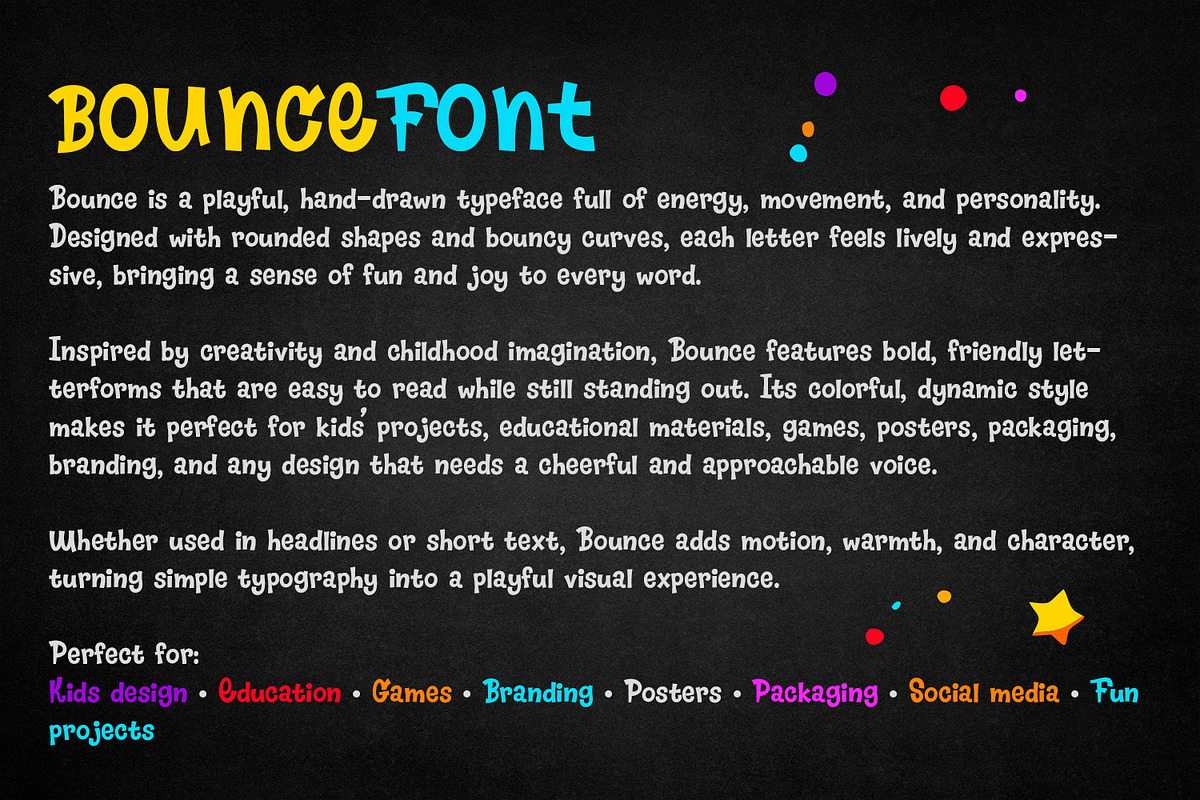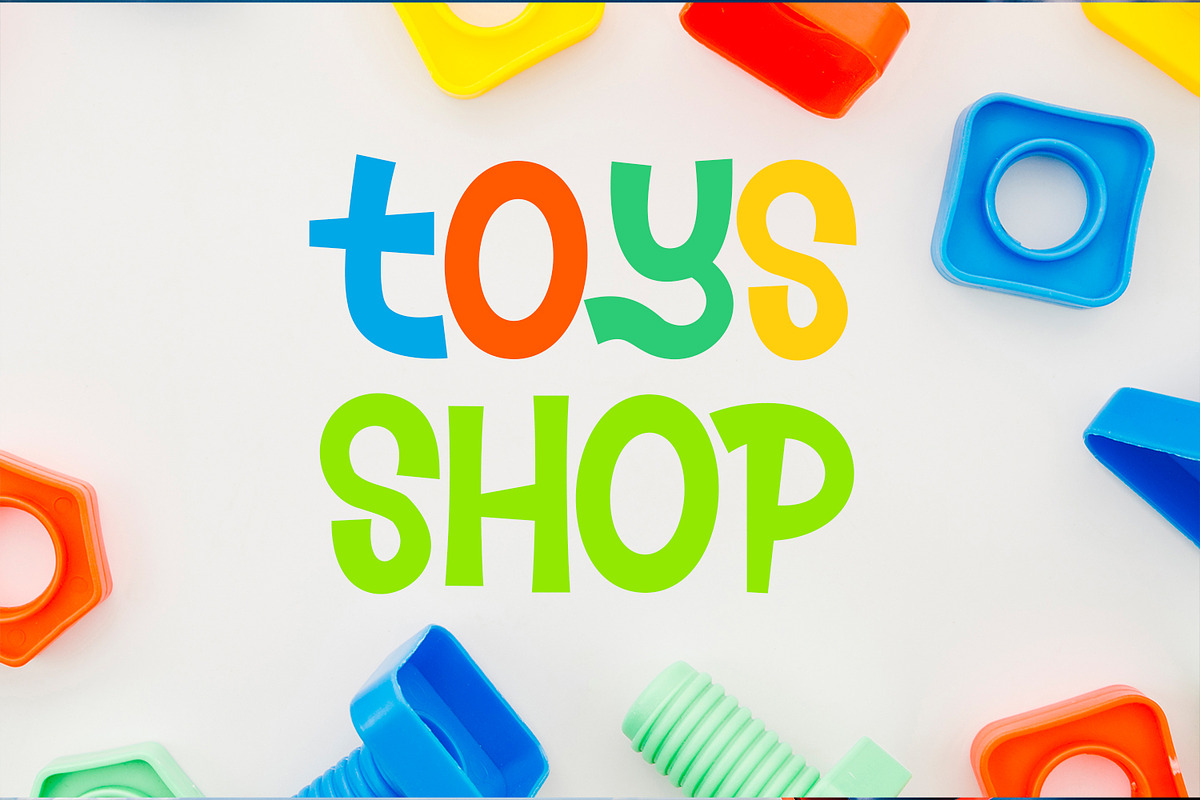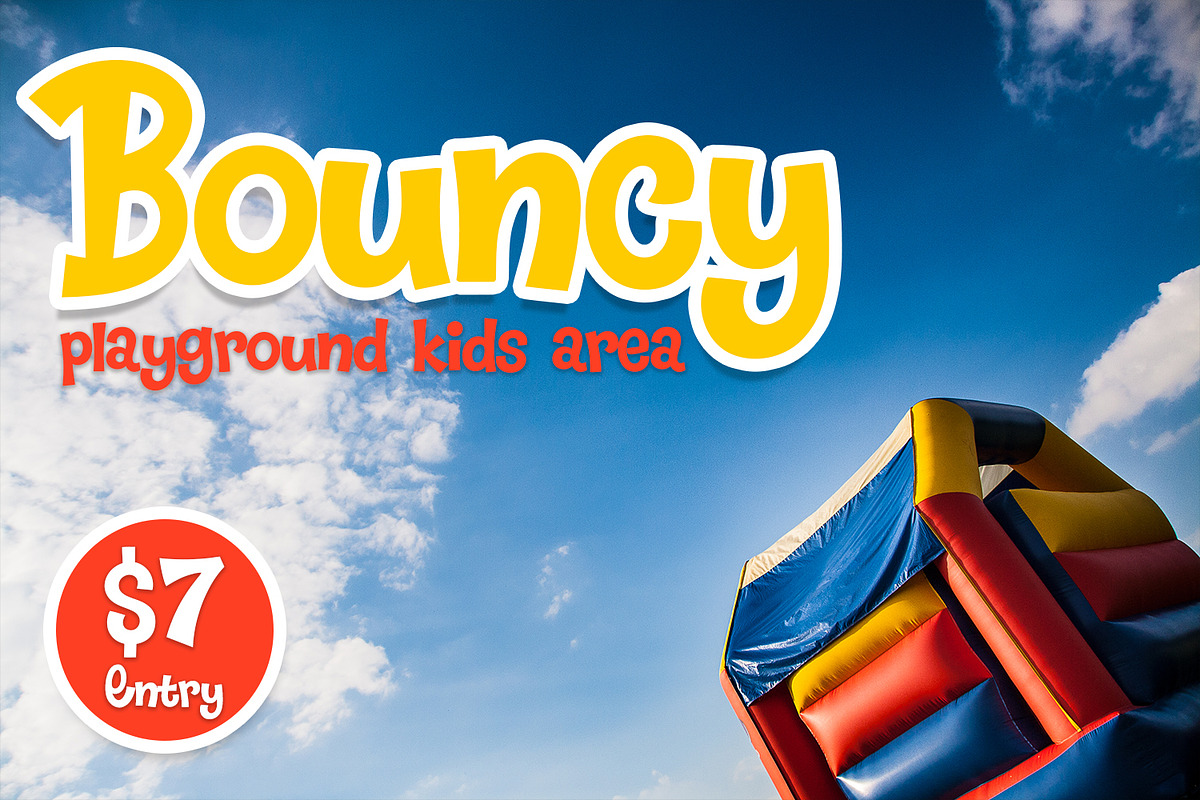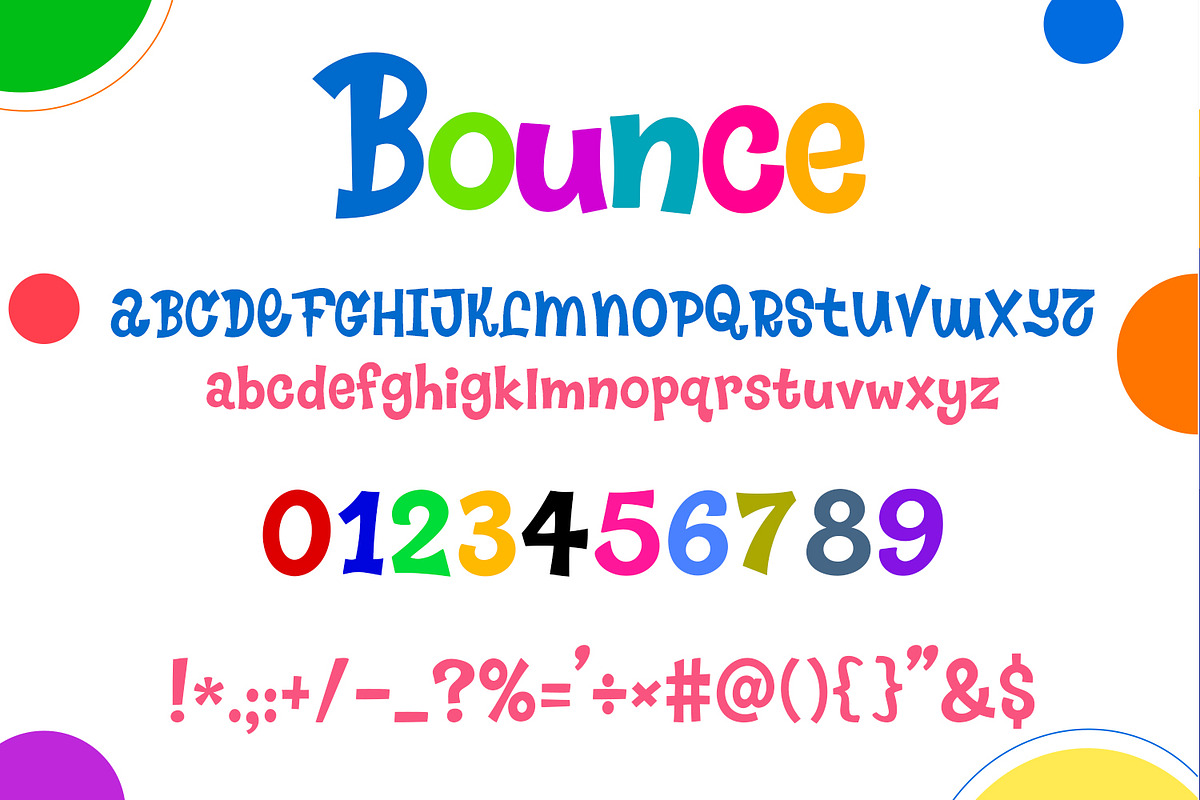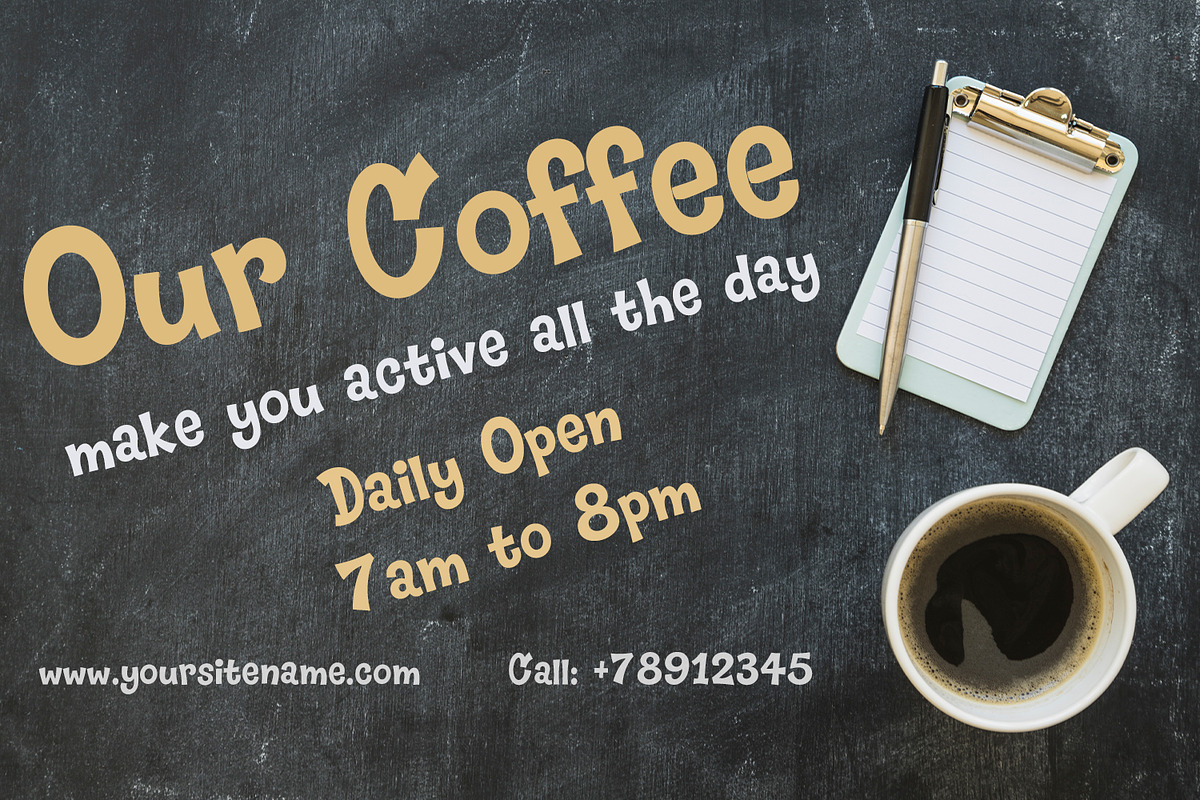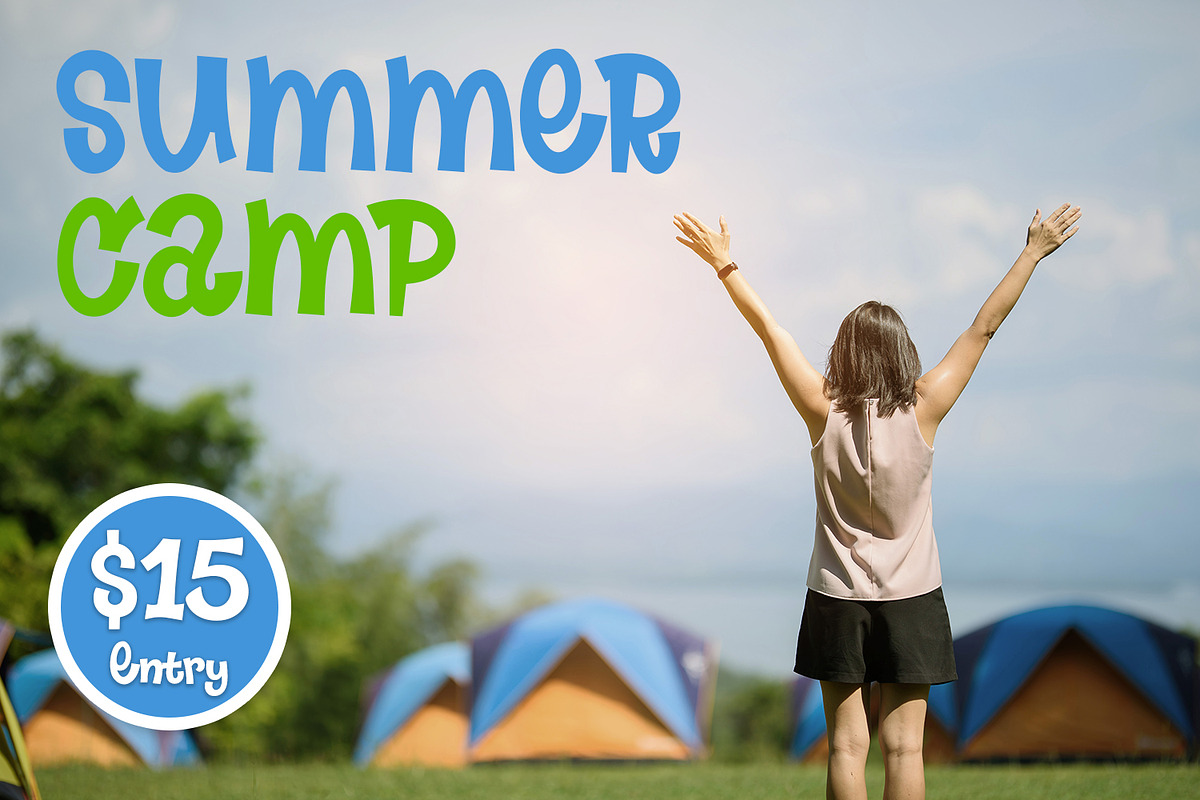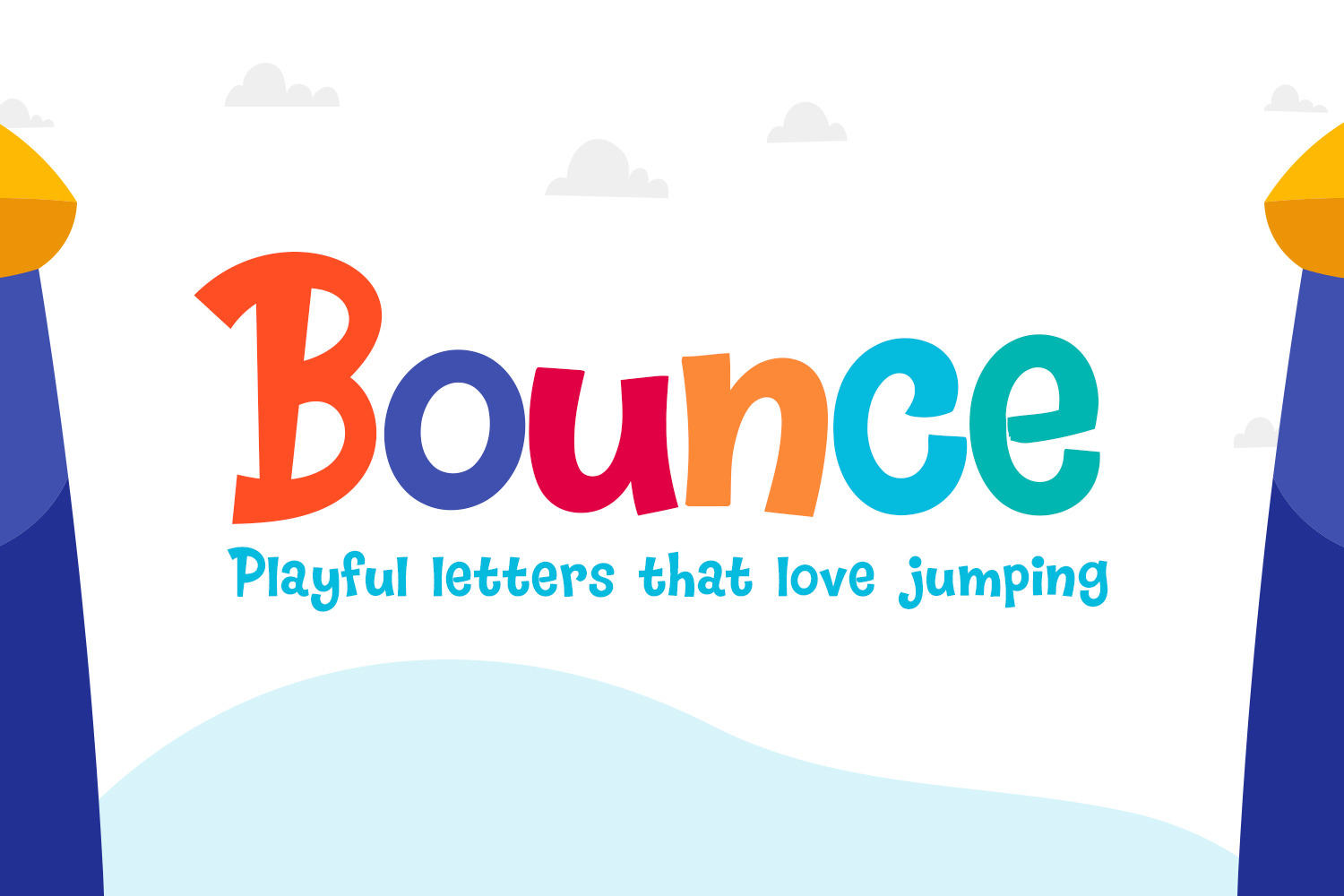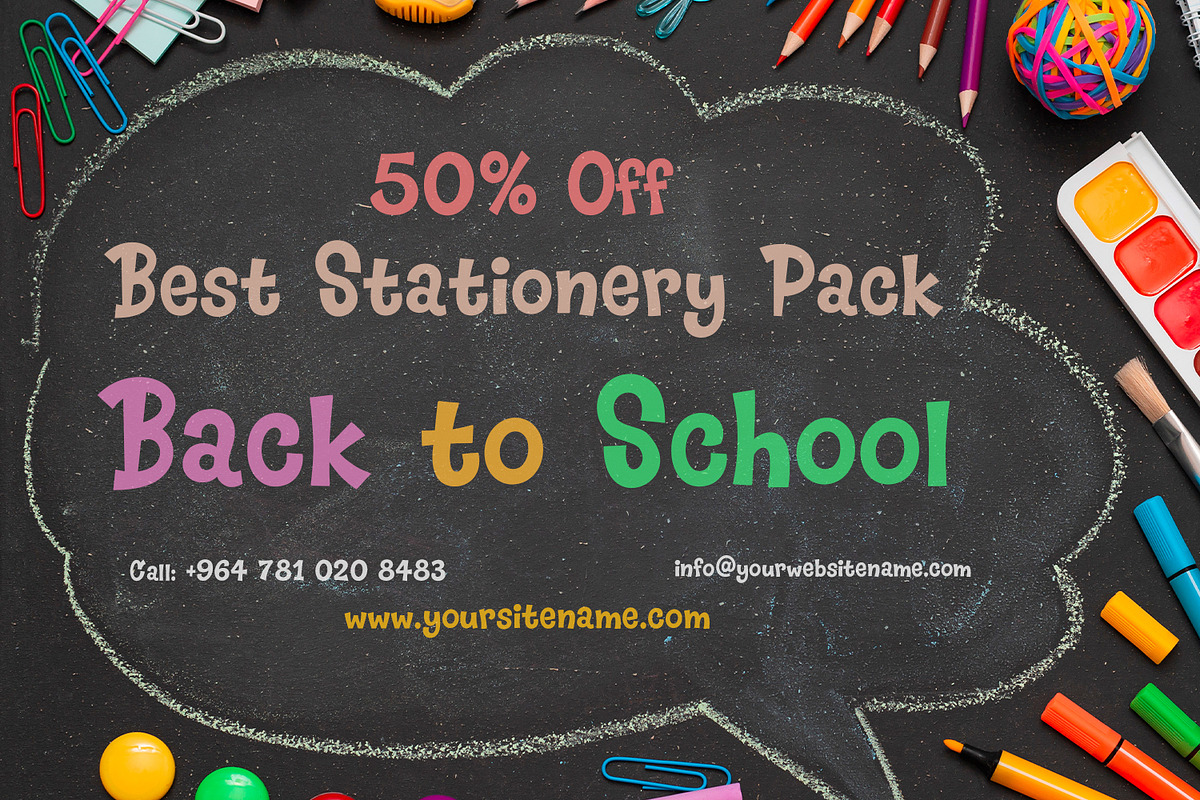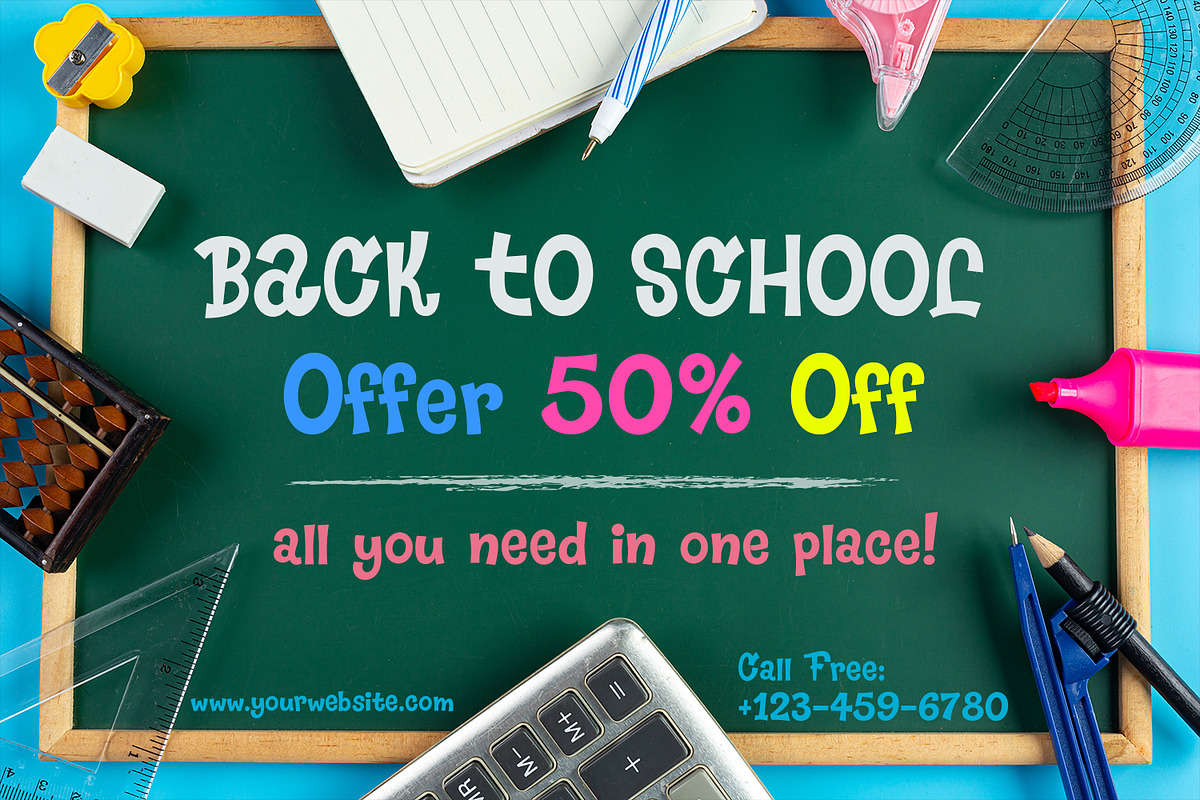
Bounce Font
Bounce is a playful, bold, and hand-drawn display font full of energy and personality. Designed with bouncy curves and friendly letterforms, this font brings joy, movement, and creativity to any design project.
Bounce includes uppercase and lowercase letters, numbers, and a wide range of punctuation and special characters, making it versatile and easy to use. Its colorful, cheerful style is perfect for kids designs, educational materials, games, posters, branding, packaging, social media graphics, and fun creative projects.
Whether you’re working on a children’s book, playful branding, or eye-catching headlines, Bounce helps your typography stand out with warmth and charm.